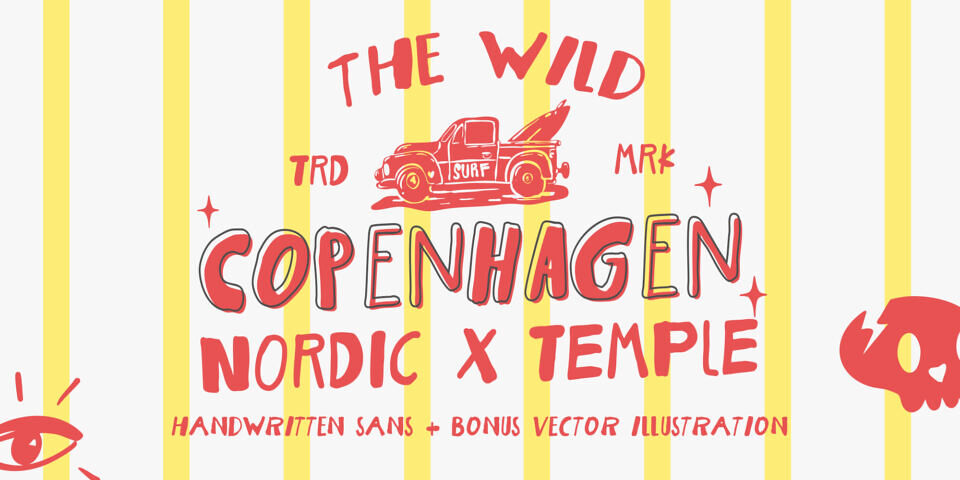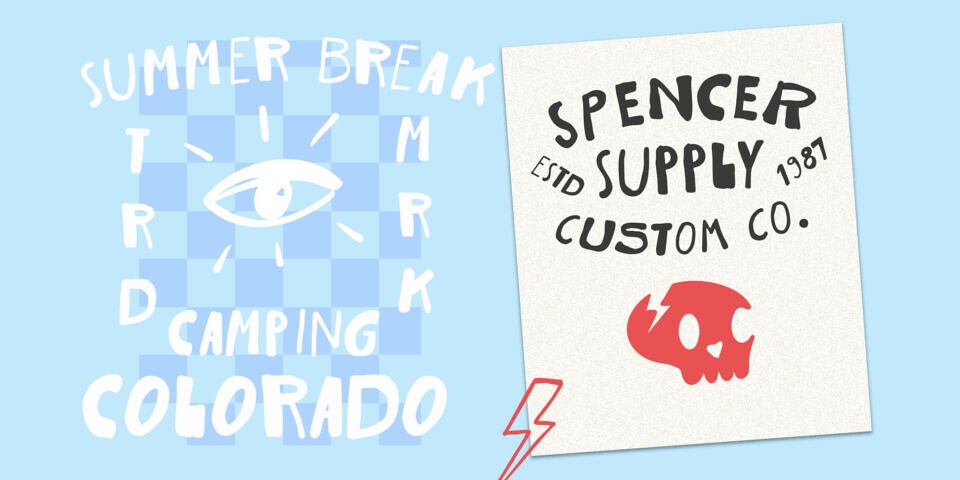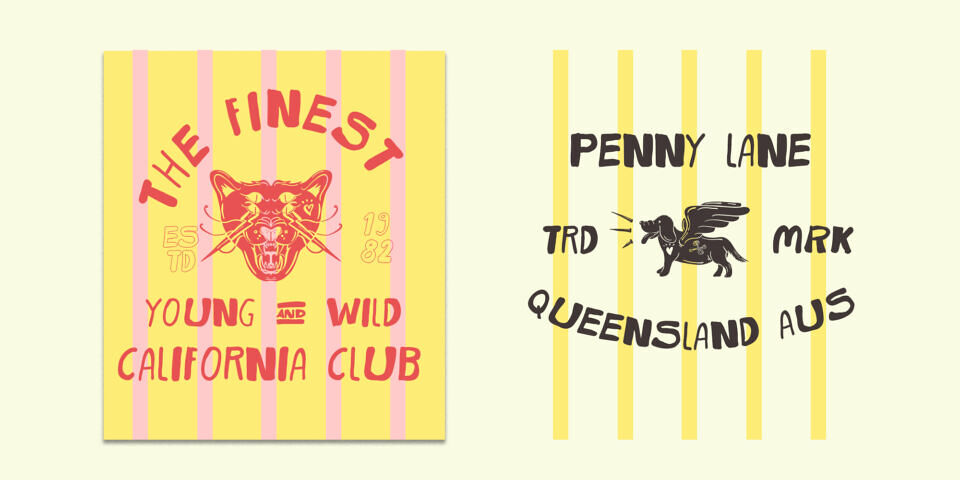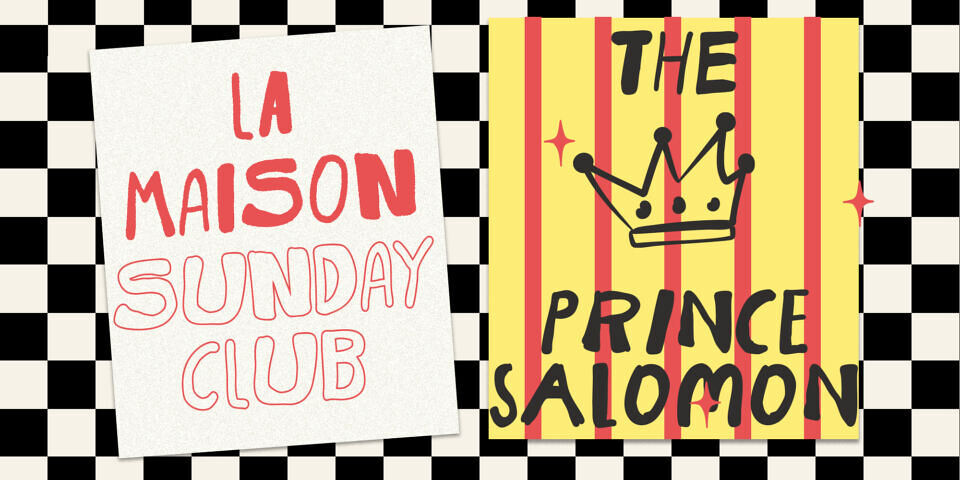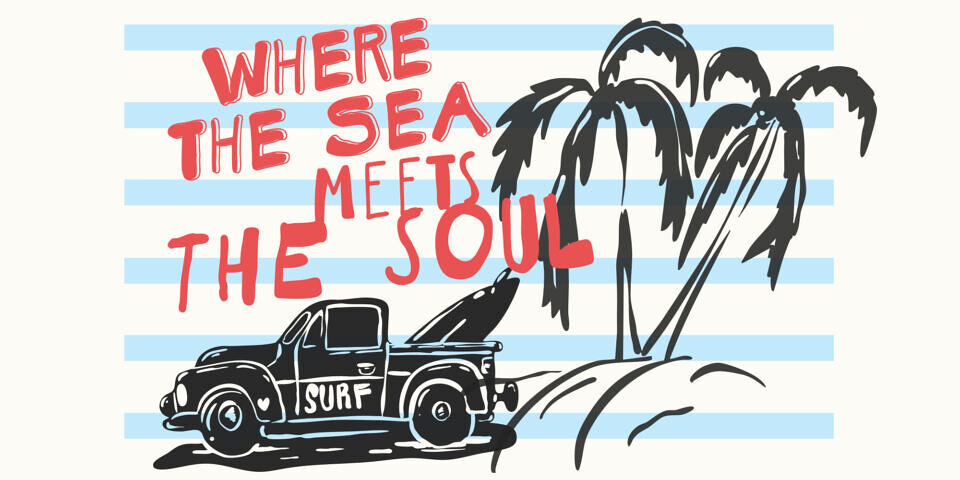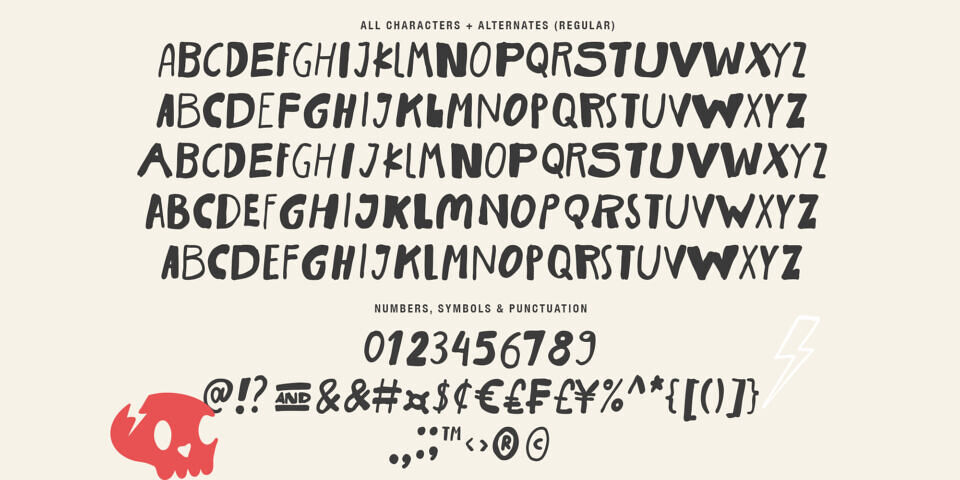
The Wild Copenhagen is a bold and untamed sans-serif typeface that captures the spirit of the wild north. Inspired by the raw, rebellious vibes of Nordic street culture, this typeface brings an unpolished, handmade feel into your design work.
Its imperfect letterforms add personality and authenticity, making it ideal for edgy branding, music posters, urban fashion, or artisan packaging.